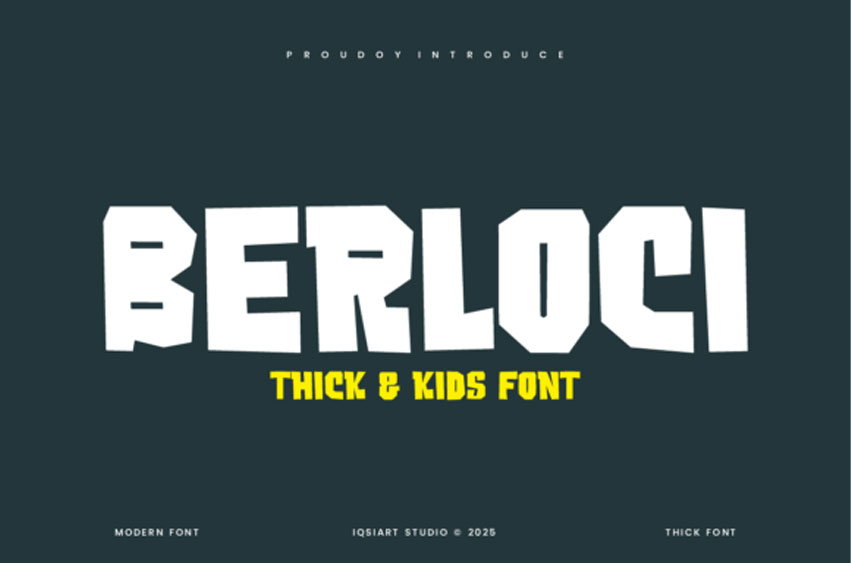
Berloci Font
Berloci Font is a unique and interesting display font.
A little bit quirky, this font looks incredibly adept in a wide variety of contexts!